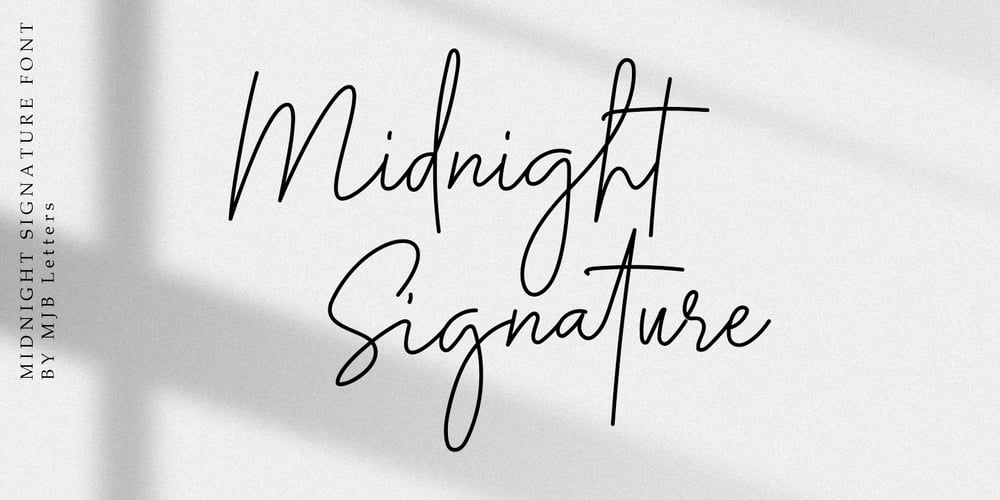
Midnight Signature
Midnight Signature font
Midnight Signature Font Family was designed by Muhammad Mujibulloh and published by MJB Letters. Midnight Signature contains 1 styles and family package options. Midnight Signature is a handwritten signature script with a natural and stylish flow. This script is perfect for everything from personal branding, wedding invitations, advertising and more.